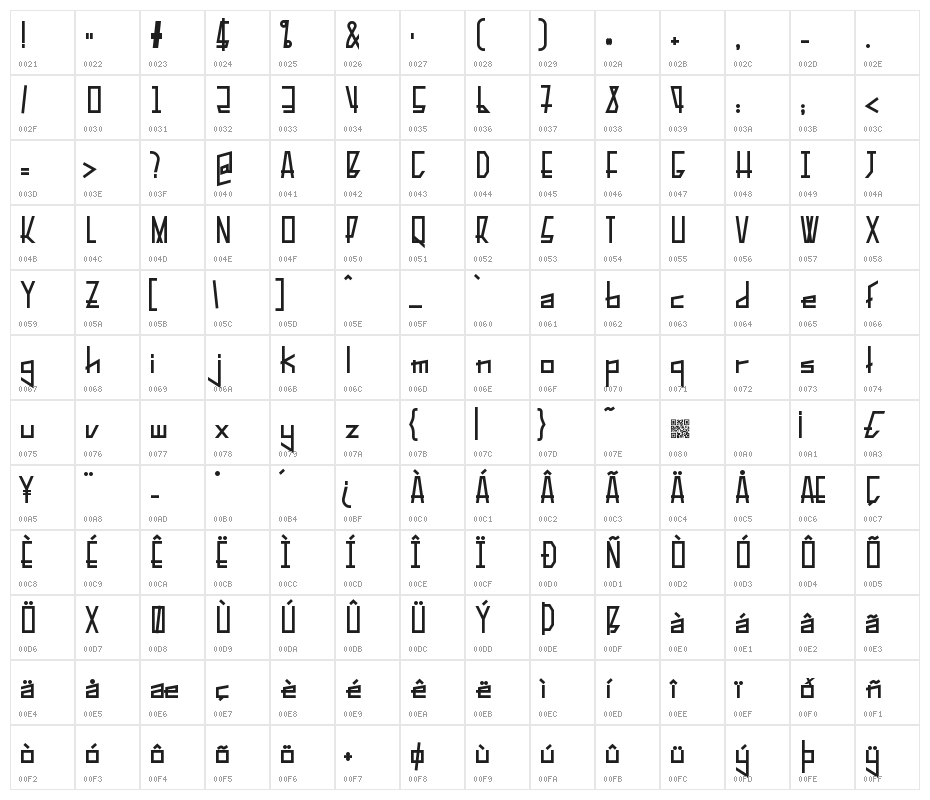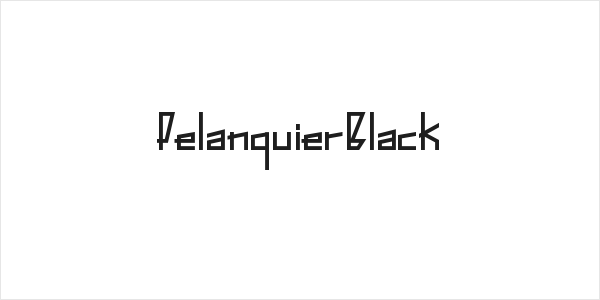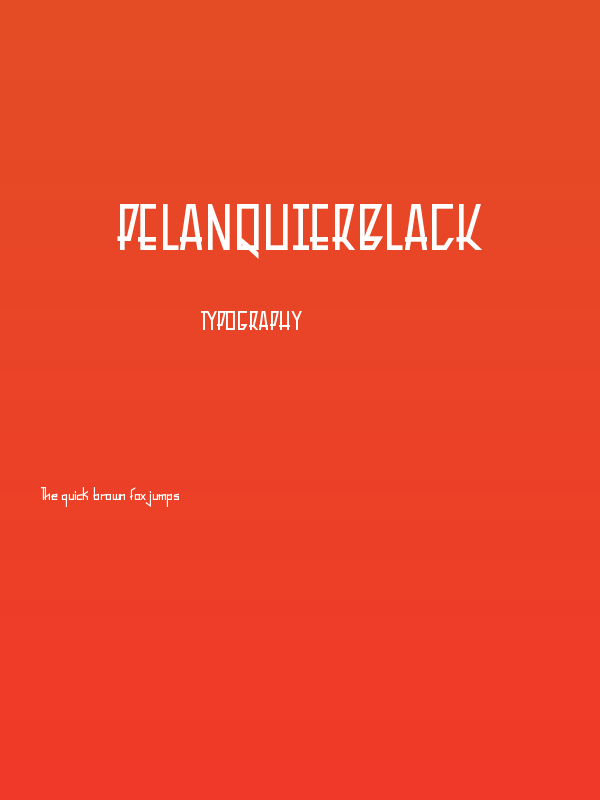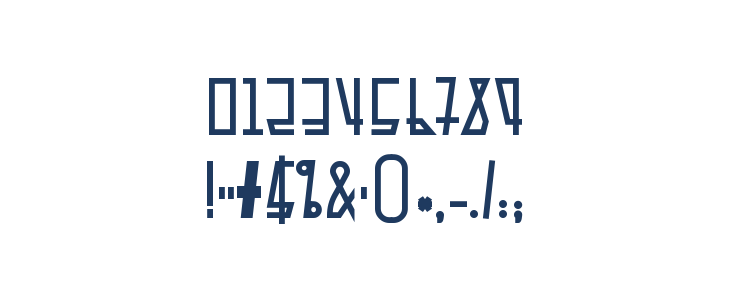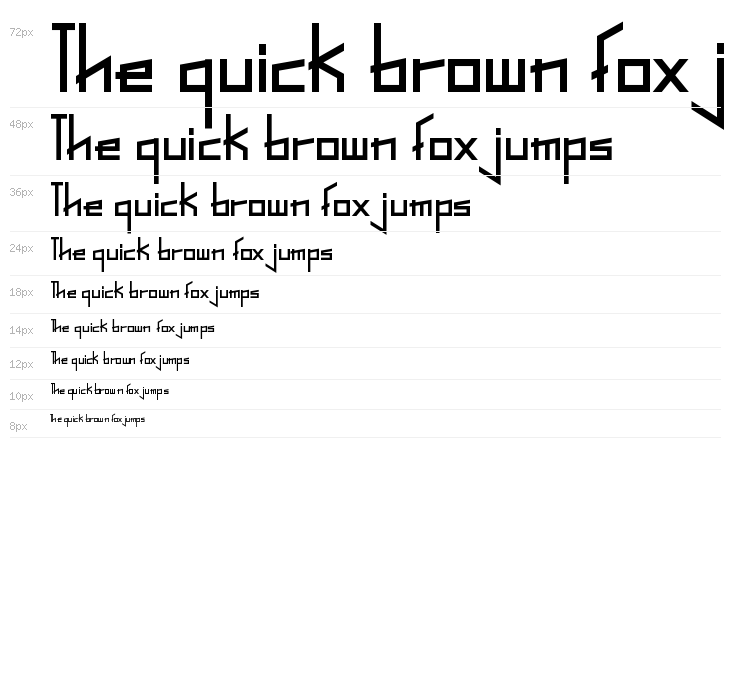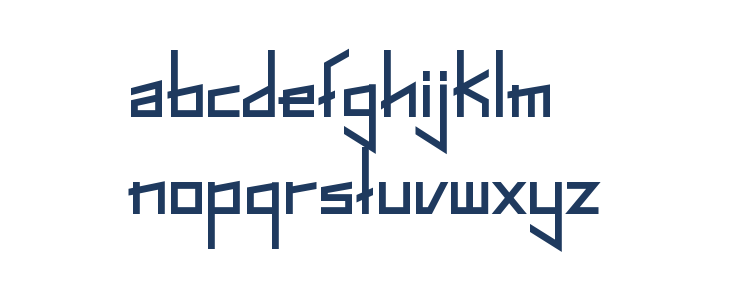
PelanquierBlack Font
PelanquierBlack Description
This font features a bold, geometric design with sharp angles and a futuristic aesthetic. The uppercase letters are characterized by their tall, narrow forms and distinct angular cuts, giving them a striking and modern appearance. The lowercase letters maintain the angular theme, providing a cohesive look across different cases. Numbers and special characters follow the same stylistic approach, ensuring consistency throughout. The overall design is highly decorative, making it suitable for projects that require a strong visual impact.
| Proposed Projects | Ideal for sci-fi themed designs, video game titles, posters, and branding that requires a modern and edgy look. |